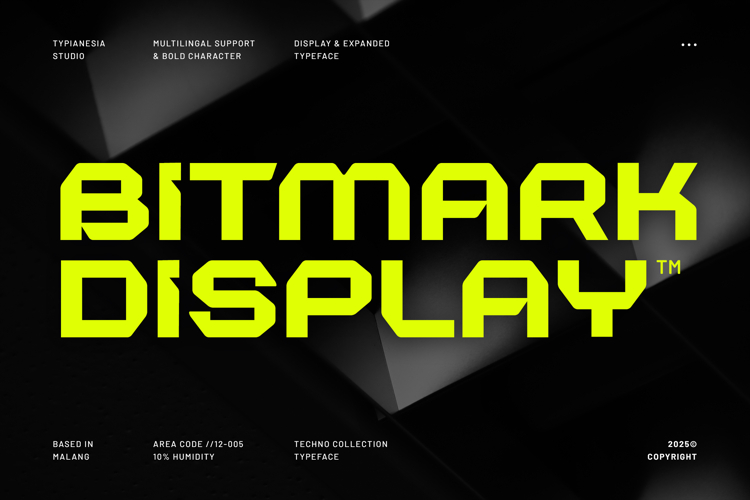
Bitmark - Modern Futuristic Tech Display Font
Bitmark - Modern Futuristic Tech Display Font - Bold Sci-Fi Cyberpunk Logo Font
Bitmark is a modern, bold, and futuristic tech display font designed for high-impact visual communication. Its sharp geometric forms and digital-inspired structure feature bold letterforms and clean construction, making Bitmark highly legible while maintaining a cutting-edge, space-age aesthetic. Perfect for tech, sci-fi, cyberpunk, and futuristic themes, Bitmark works seamlessly for logos, headlines, posters, advertising, digital interfaces, games, esports, sports branding, corporate identities, tech startups, and any project that demands a powerful, modern, and innovative look.